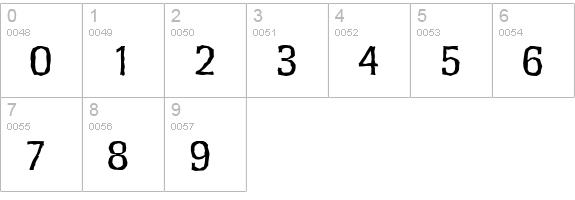
RochesterAntique-Regular is the standard, neutral variant in the RochesterAntique typeface family \xE2\x80\x94 well suited to general body text, paragraphs, and standard typographic work.
RochesterAntique-Regular font is a timeless and elegant typeface that exudes a sense of nostalgia and sophistication. With its classic serifs and graceful curves, this font is perfect for adding a touch of vintage charm to any design project. Whether you are working on invitations, signage, or branding materials, RochesterAntique-Regular font will lend a sense of old-world elegance to your work. The best part? RochesterAntique-Regular font is available for free download at FontsMarket.com. So go ahead and add this beautiful typeface to your collection without having to spend a dime. Embrace the beauty of the past with RochesterAntique-Regular font and let its classic allure elevate your designs to new heights.